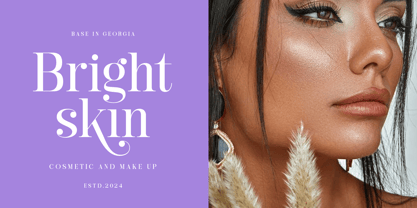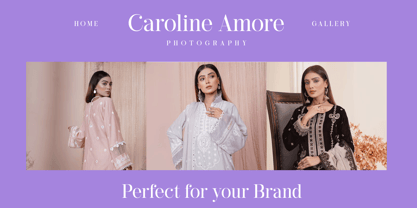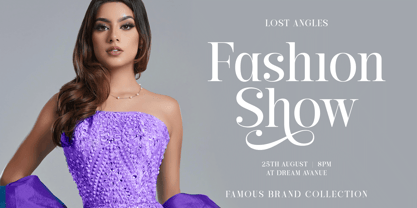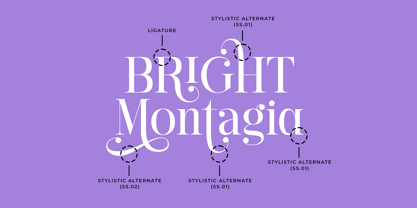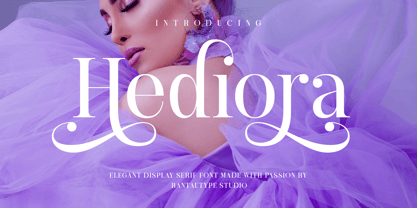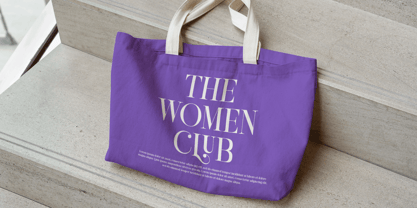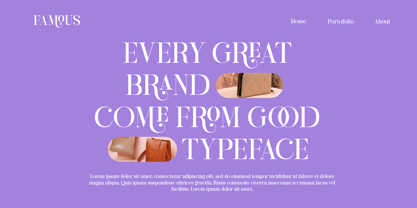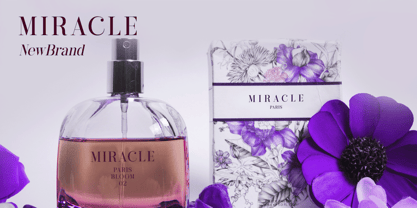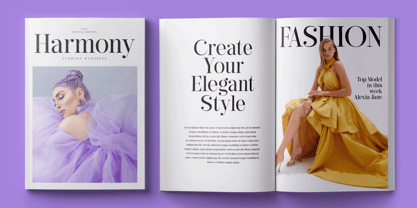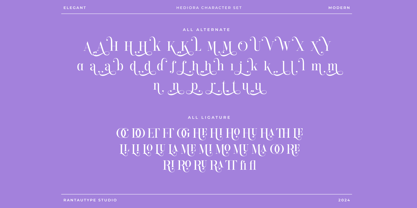
Hediora
Hediora is elegant serif font inspire by fashion trend. Hediora come with modern character and touch of feminity. Hediora is a beautiful choice for any creative endeavor, creating elegant, modern, chic, lifestyle design such as logotype, title, cover, branding, invitations, wedding designs, display and magazine, social media posts, advertisements, printed quotes, product packaging, corporate brand, product designs, labels, photography, watermarks, special events and any other project with elegant touch.
• Standart Glyphs
• Numberial and Functional
• Ligature and alternate